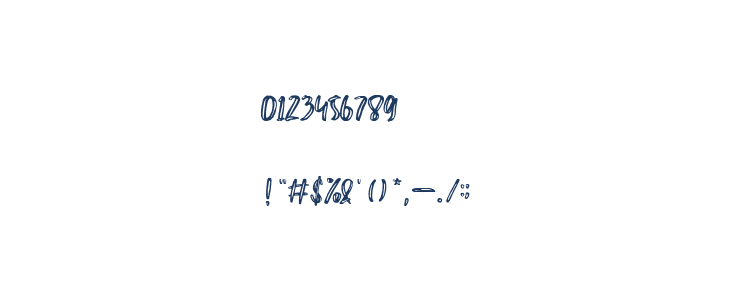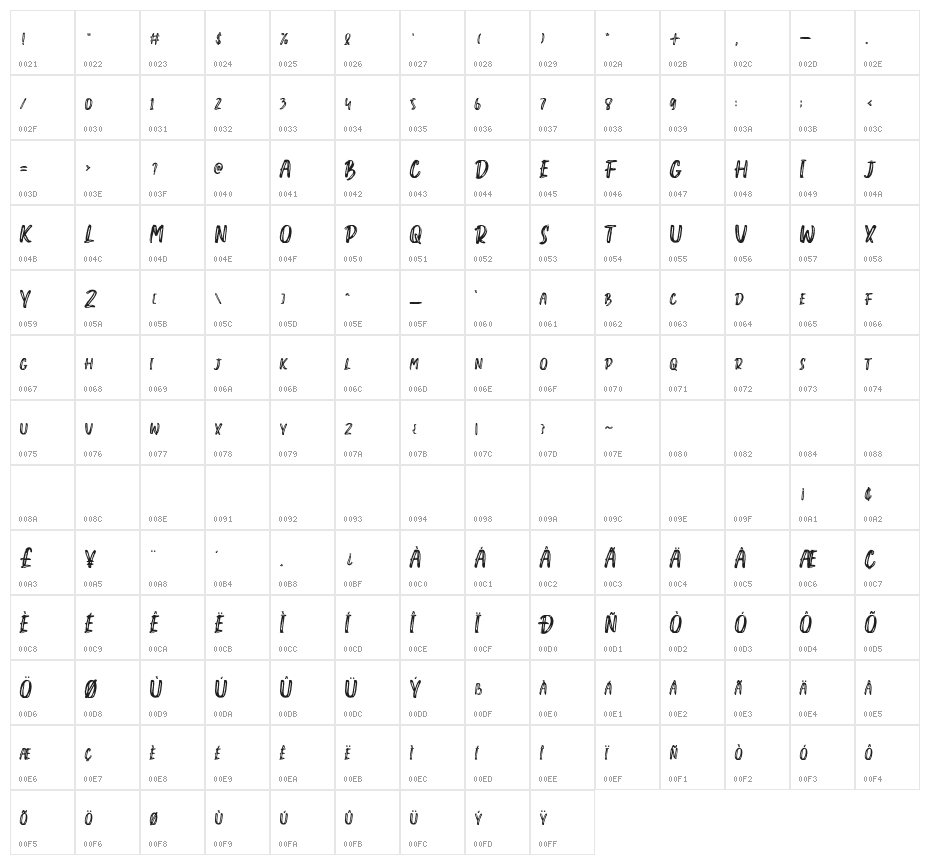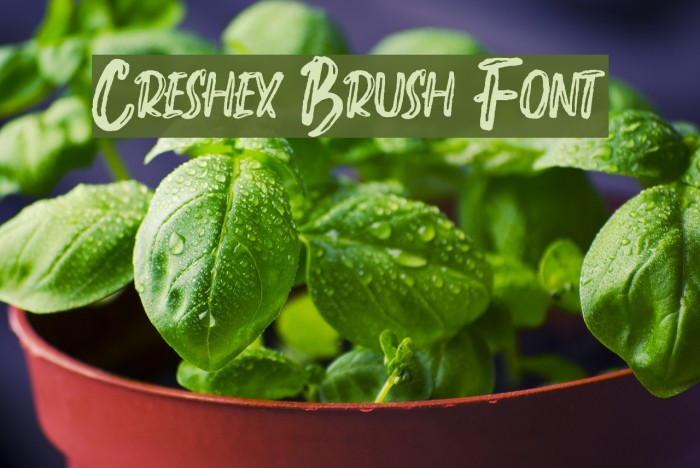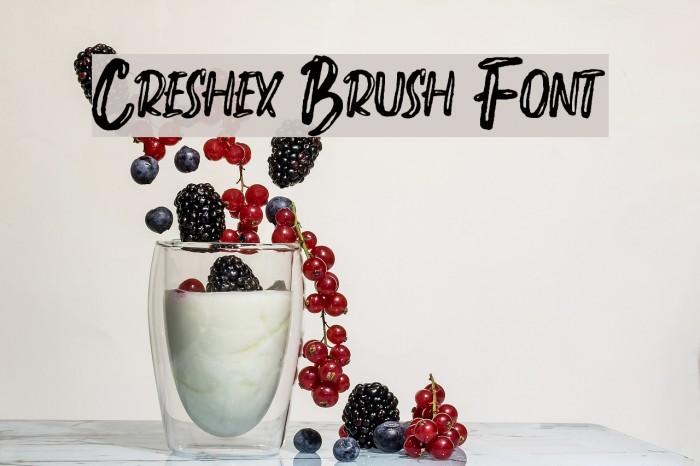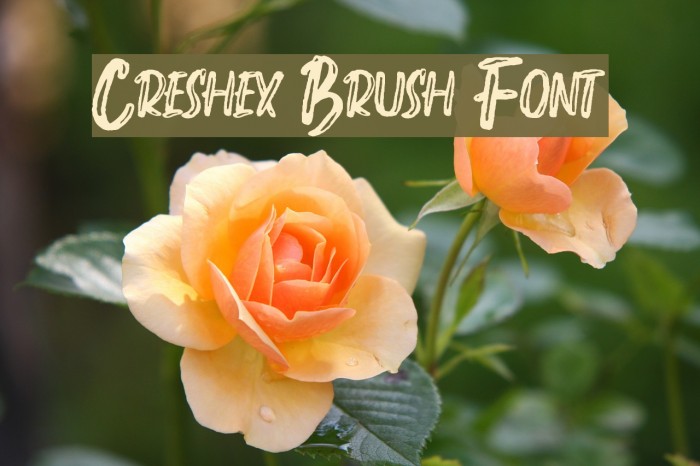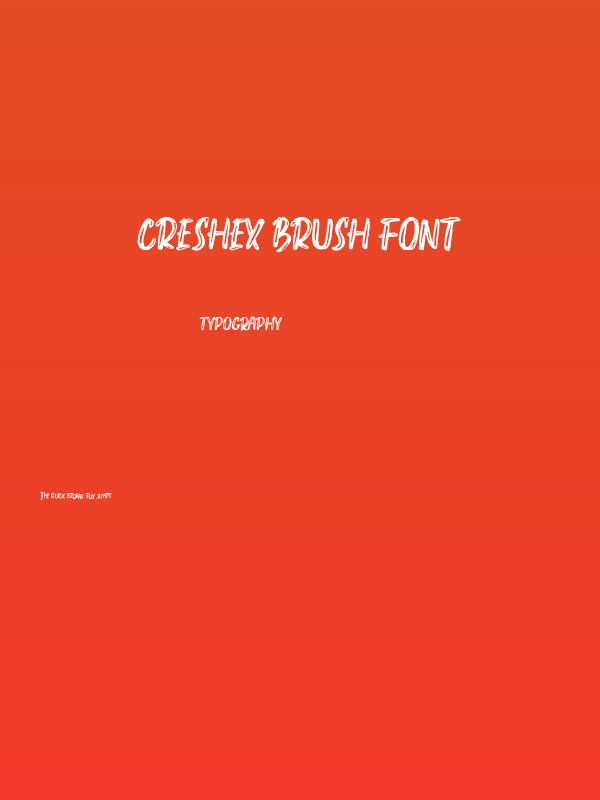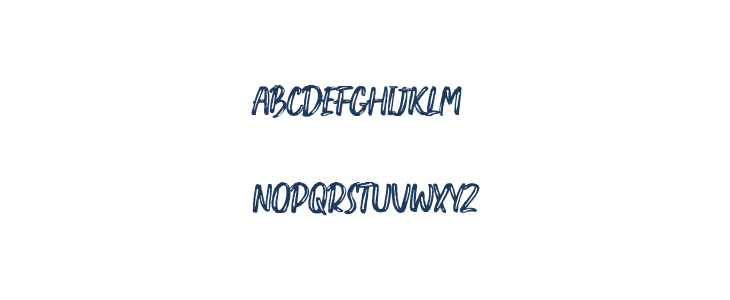
Creshex Brush Font Font
Creshex Brush Font Description
This font features a dynamic and expressive brush style, characterized by its bold and energetic strokes. The letters have a hand-painted appearance, with varying thickness that adds a sense of movement and vitality. The uppercase and lowercase letters maintain a consistent style, while the numbers and special characters complement the overall aesthetic. The font's design is both artistic and legible, making it suitable for creative projects that require a personal touch.
| Proposed Projects | Ideal for branding, posters, invitations, and artistic projects that require a personal and creative touch. |